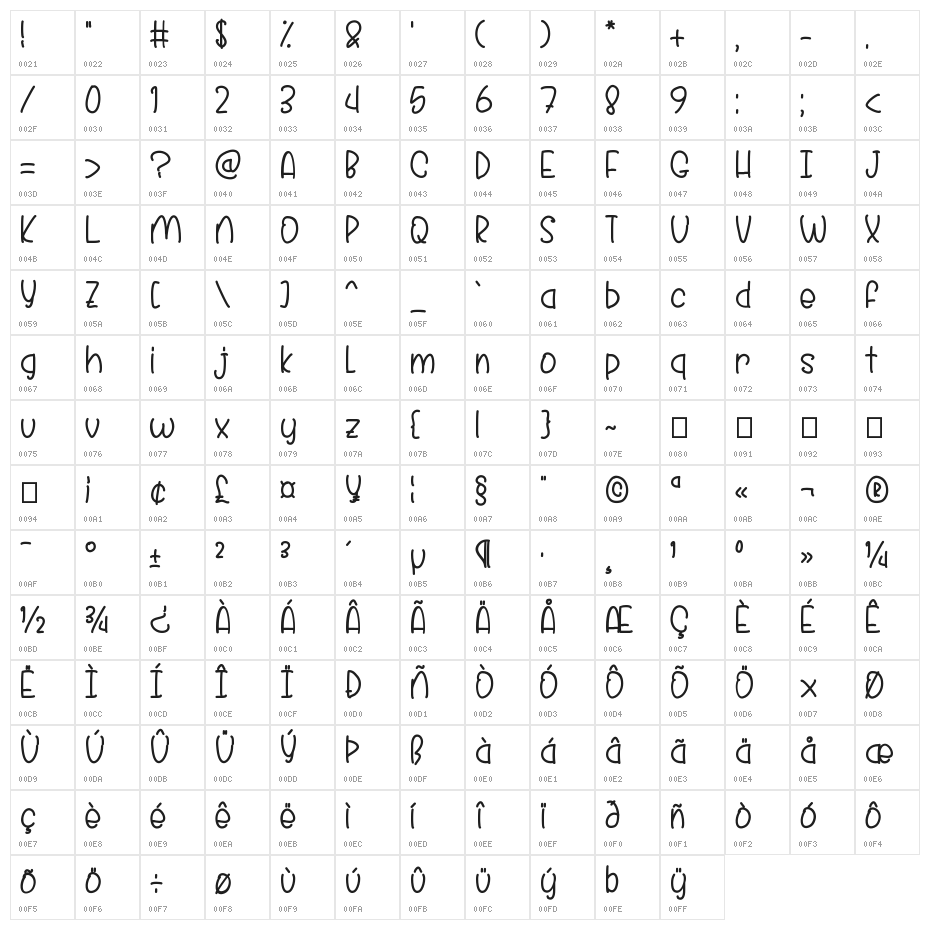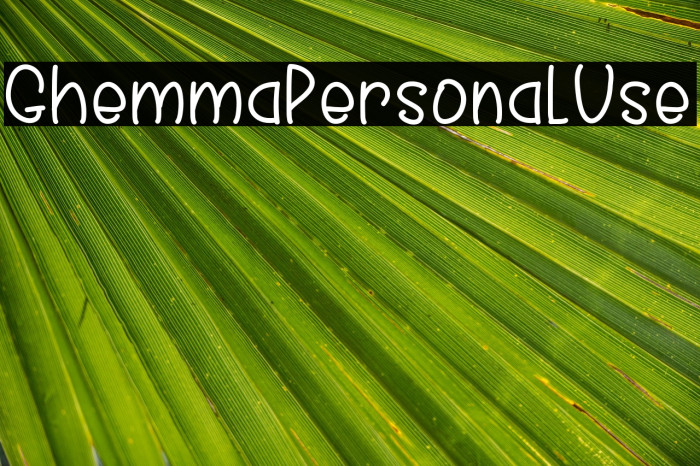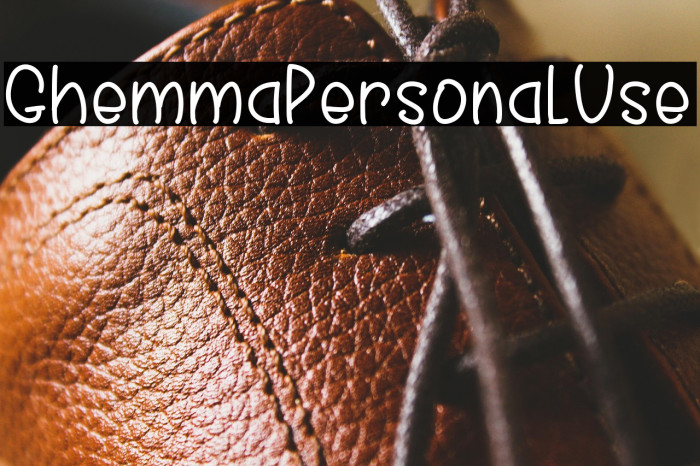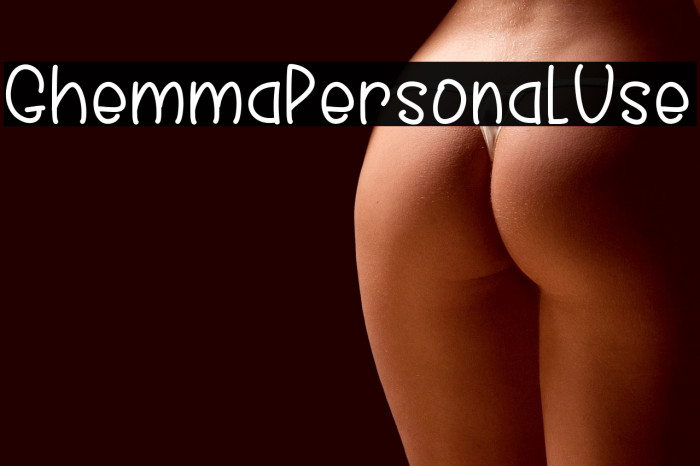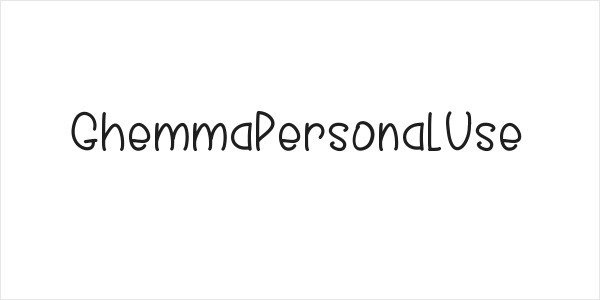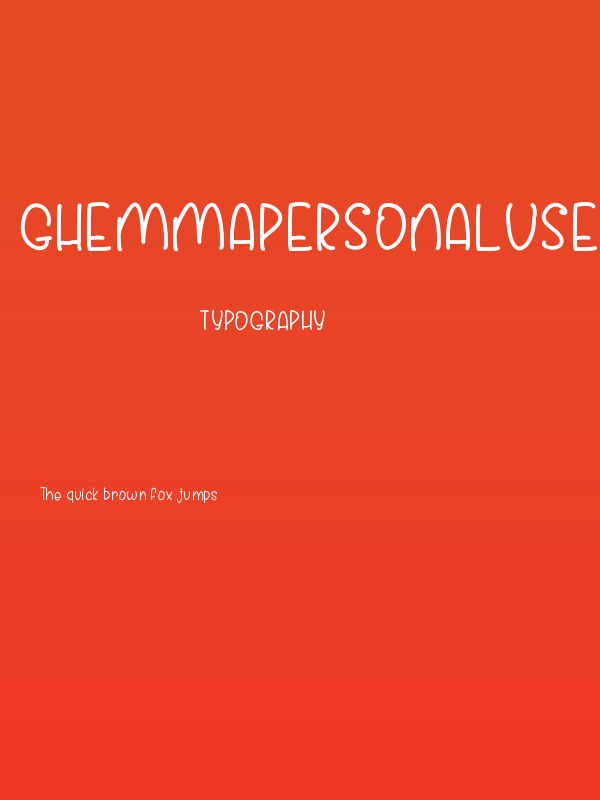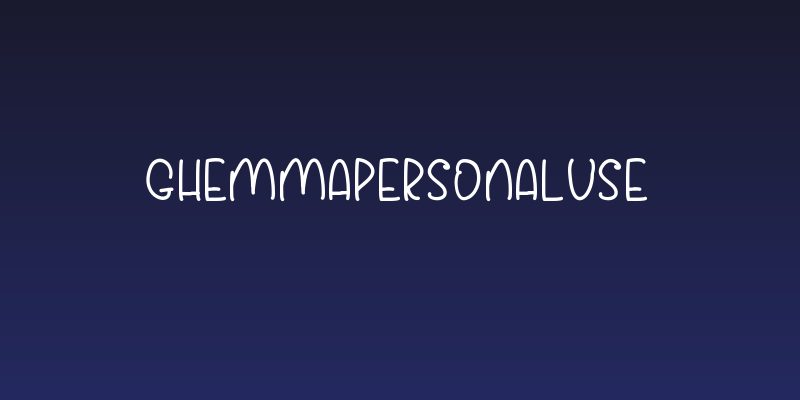
GhemmaPersonalUse Font
GhemmaPersonalUse Description
A playful, handwritten font with rounded edges and a casual style, suitable for informal and creative projects.
| Proposed Projects | Greeting cards, children's books, casual invitations. |